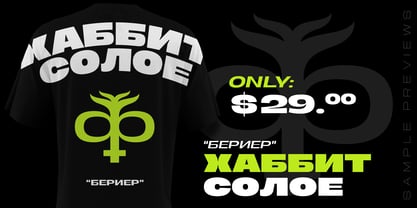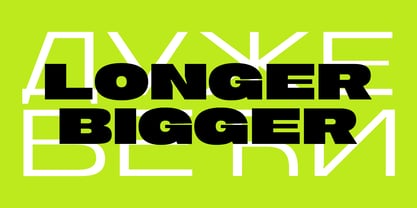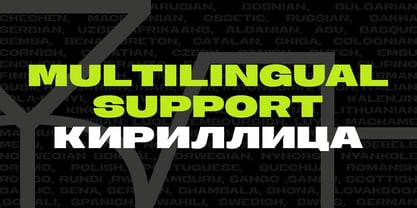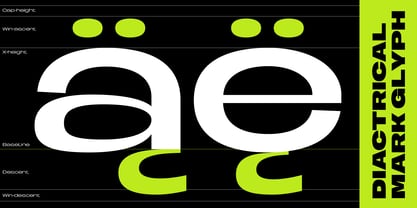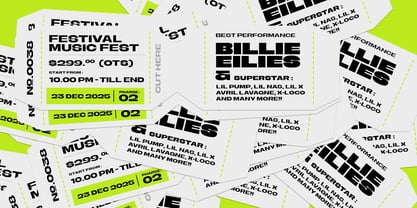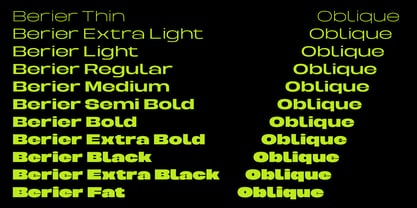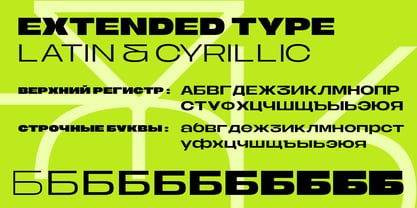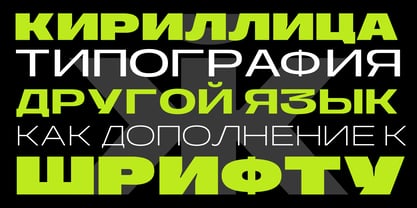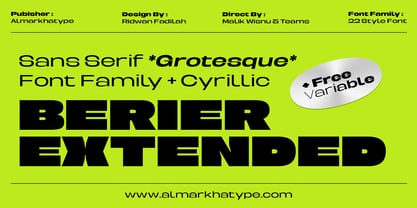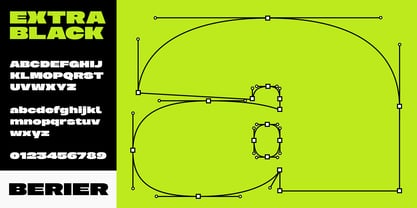
Berier
A família de fontes Berier foi desenhada por Abdul Malik Wisnu e publicada pela Almarkha Type. Berier contém 22 estilos e opções de pacote familiar. Saiba mais sobre esta família
Introducing Berier, an extended grotesque typeface designed for versatility and functionality. With its 11 weights, including oblique styles, Berier offers a wide range of options for your design needs. This meticulously crafted typeface is clean, modern, and distinctive, making it ideal for a variety of projects. From editorial layouts to branding, packaging, signage, and more, Berier brings a touch of contemporary sophistication to your designs. Berier supports both Cyrillic and Latin extended characters, ensuring compatibility for multilingual projects. Its versatility allows it to seamlessly adapt to different design contexts, while the oblique styles add a dynamic twist to your typography. With Berier, you have a font that is simple yet expressive, clean yet warm, and Swiss-inspired in its clarity. Elevate your designs with the airy and open feel of Berier, a versatile and functional typeface that is sure to make a distinctive statement in your creative work.